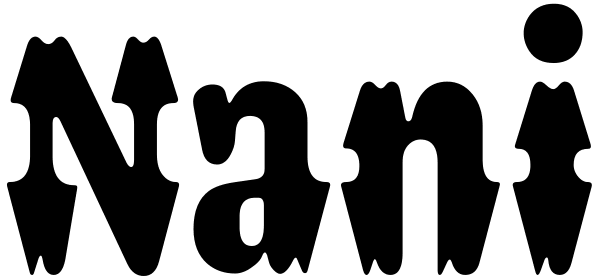
Nani
Inspired by handpainted letterforms on the Sumatran island of Samosir, this typeface was awarded a TDC Certificate of Excellence in Typographic Design.
Nani Font